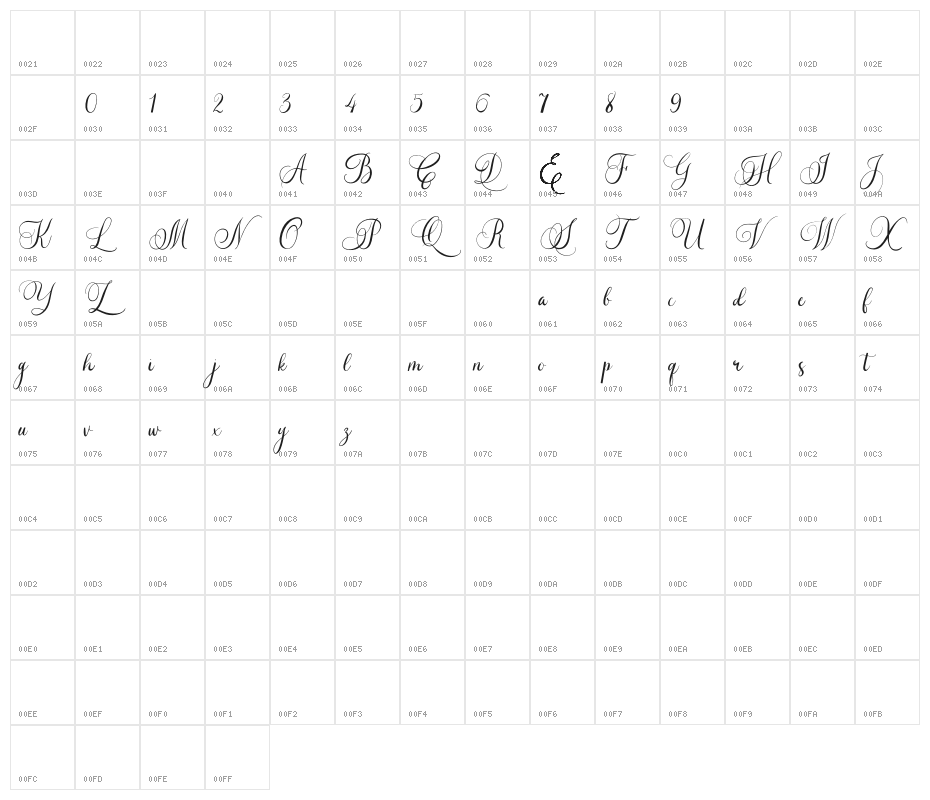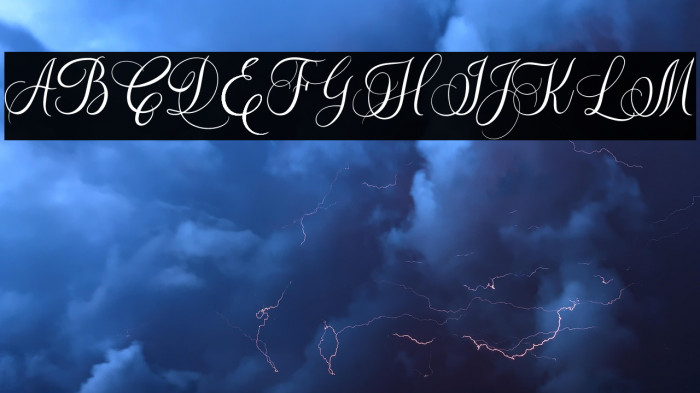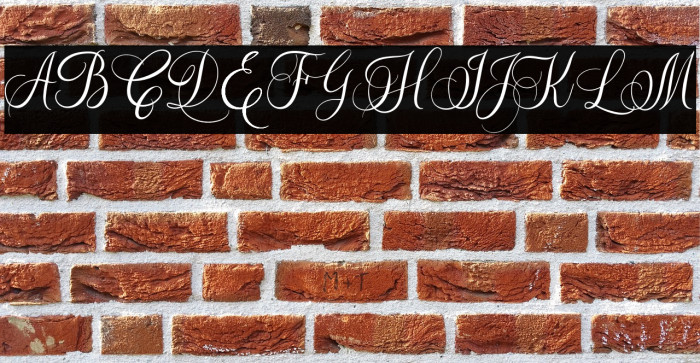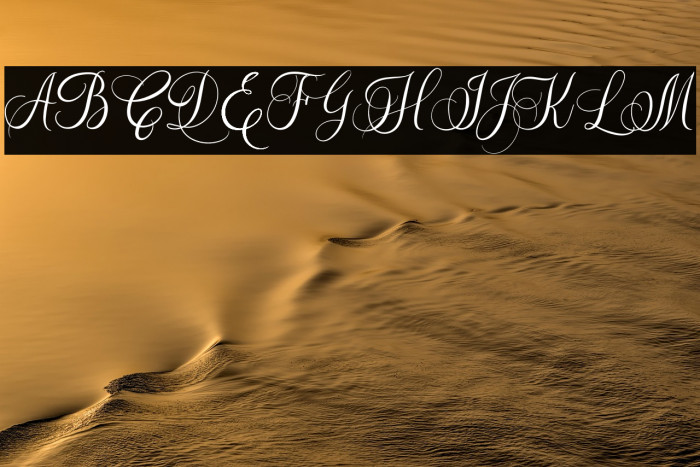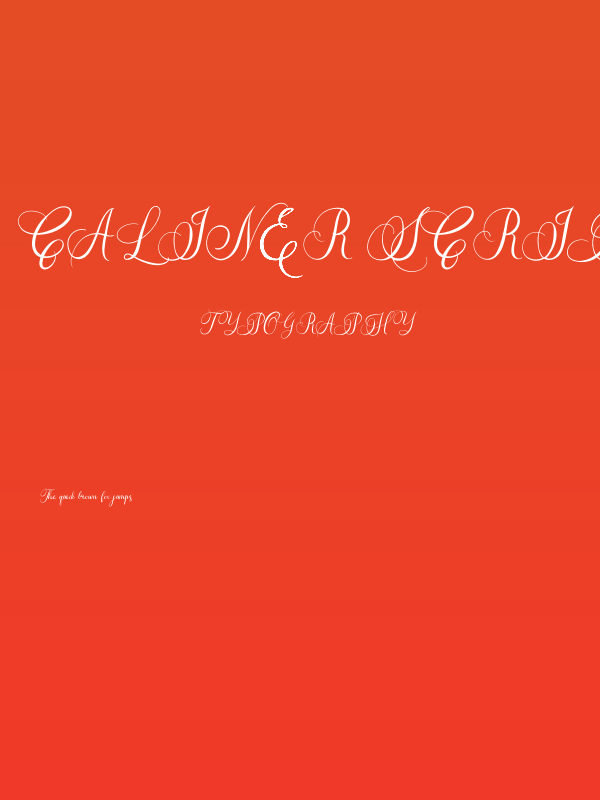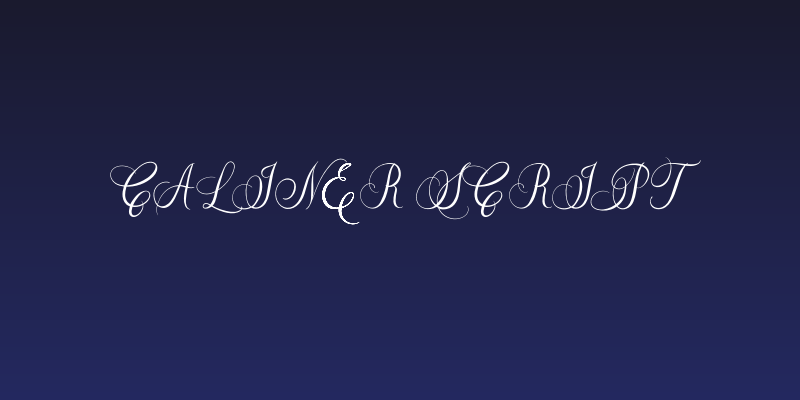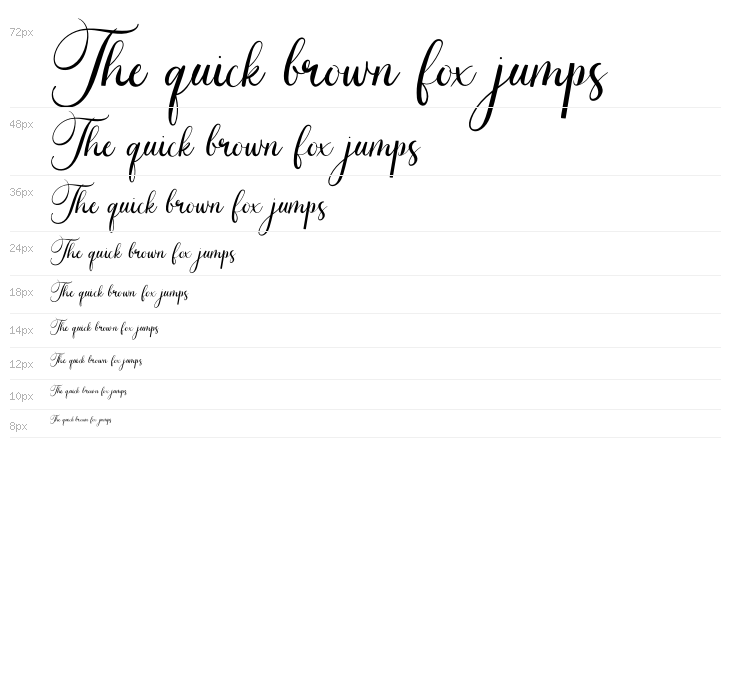
Caliner Script Font
Caliner Script Description
This elegant script font features a flowing, cursive style with intricate loops and flourishes. The uppercase letters are particularly ornate, showcasing a high level of detail and sophistication. The lowercase letters maintain a smooth, connected appearance, enhancing the font's overall fluidity. Numbers and special characters are crafted with the same attention to detail, ensuring consistency across all glyphs. The font's graceful curves and delicate strokes make it ideal for projects that require a touch of elegance and refinement.
| Overall Style | Elegant, Decorative |
| Use Case | Logos, Invitations, Decorative text |
| Proposed Projects | Ideal for wedding invitations, elegant branding, luxury packaging, and decorative signage. |